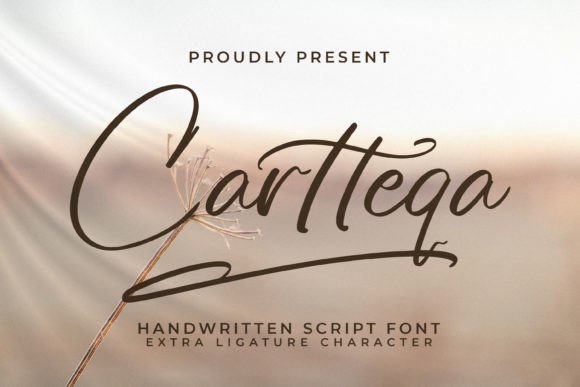
The Cartteqa Font: A Designer’s New Best Friend
I’ll never forget the time I was working on a photography project, trying to add a subtle watermark to each image. I had a vision of a elegant, yet readable font that would complement the visuals without overpowering them. After scouring the internet for hours, I stumbled upon the Cartteqa font. It was love at first sight! ✨ In this article, I’ll share my experience with Cartteqa, its features, and how to make the most of it in various design projects.
• ✅ Elegant and sophisticated design, perfect for high-end projects
• ✨ Versatile and adaptable to various design applications, from watermarks to album covers
• 🔍 Excellent legibility, even at small font sizes
• 🎨 Beautiful OpenType features, glyphs, and stylistic alternates to enhance creativity
While Cartteqa is an excellent font, it’s not perfect. Here are a few things to keep in mind:
• ⚠️ Some users might find the font a bit too slender for certain design projects
• 🤔 Limited availability of condensed or bold weights, which might limit its use in certain contexts
Cartteqa was designed with the intention of creating a versatile, elegant font that would meet the needs of designers and crafters. Its creator drew inspiration from classic typography and modern design trends to craft a font that’s both timeless and contemporary.
What is Cartteqa best used for? Cartteqa is a great choice for watermarks on photography, signature logo designs, quotes, album covers, magazines, business cards, and many other design projects.
Is Cartteqa suitable for body text? While Cartteqa is elegant and readable, it’s best suited for titles, headings, and short-form text. For body text, consider using a font with more generous x-height and clearer letterforms.
Does Cartteqa support OpenType features? Yes, Cartteqa features advanced OpenType capabilities, including ligatures, stylistic alternates, and glyphs.